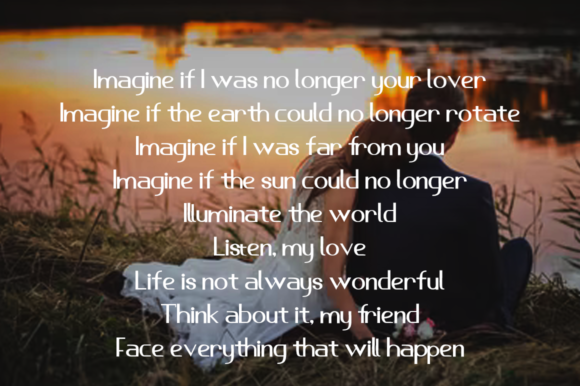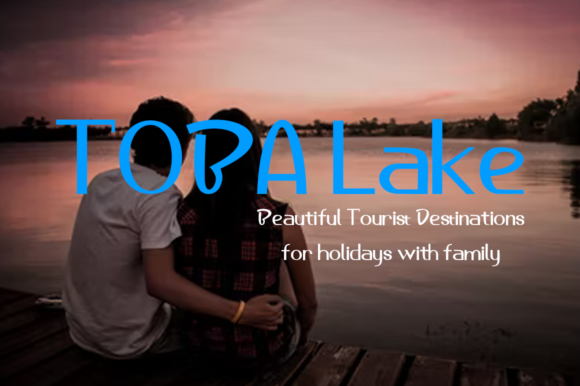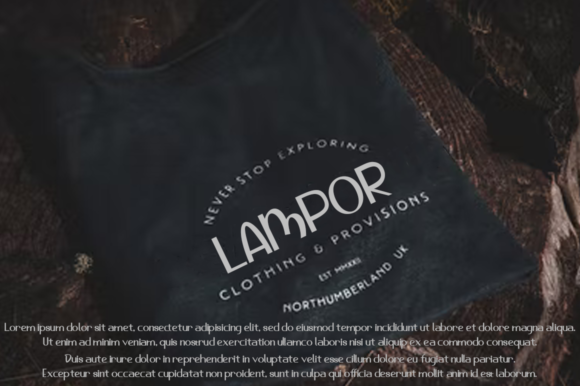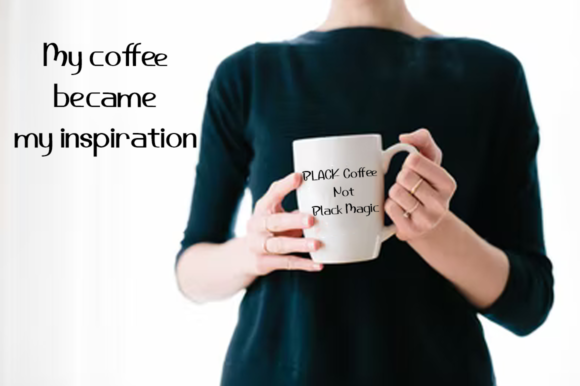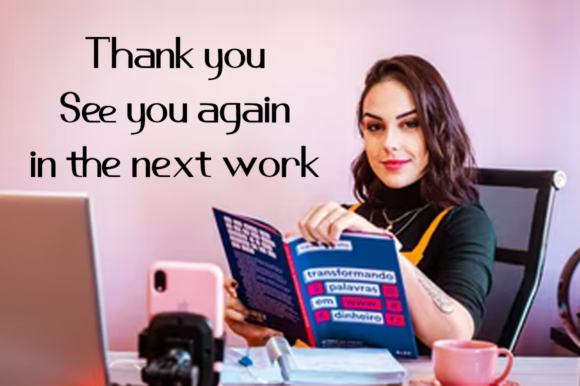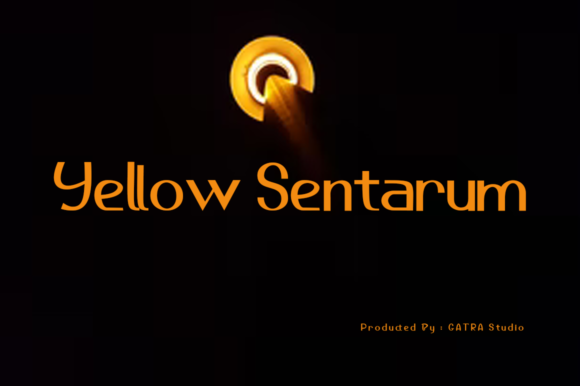
Yellow Sentarum Font
About Yellow Sentarum Font
Introducing “Yellow Sentarum,” an incredibly cool display font designed to elevate your creative ideas to the highest level. With its modern yet whimsical style, this font brings a fresh and dynamic look to any project, making it stand out with its unique charm and personality.
Yellow Sentarum’s bold and playful appearance makes it perfect for a wide range of applications, from branding and advertising to packaging, posters, headlines, and more. Whether you’re designing for print or digital media, this font adds a touch of excitement and creativity to your designs.
With PUA encoding, accessing the wide array of glyphs and ligatures is effortless, allowing you to customize your designs with ease. Whether you’re adding decorative elements or unique letter combinations, Yellow Sentarum offers endless possibilities for creative expression.
Experience the coolness and versatility of Yellow Sentarum and watch as it transforms your creative ideas into stunning visual masterpieces. Whether you’re a professional designer or a creative enthusiast, this font invites you to explore new avenues of creativity and express yourself with confidence and style.
Unlock the full potential of your designs with Yellow Sentarum and let its modern and whimsical style take your projects to new heights. With its boldness and creativity, this font is sure to become a favorite in your design toolkit, inspiring innovation and imagination with every use.